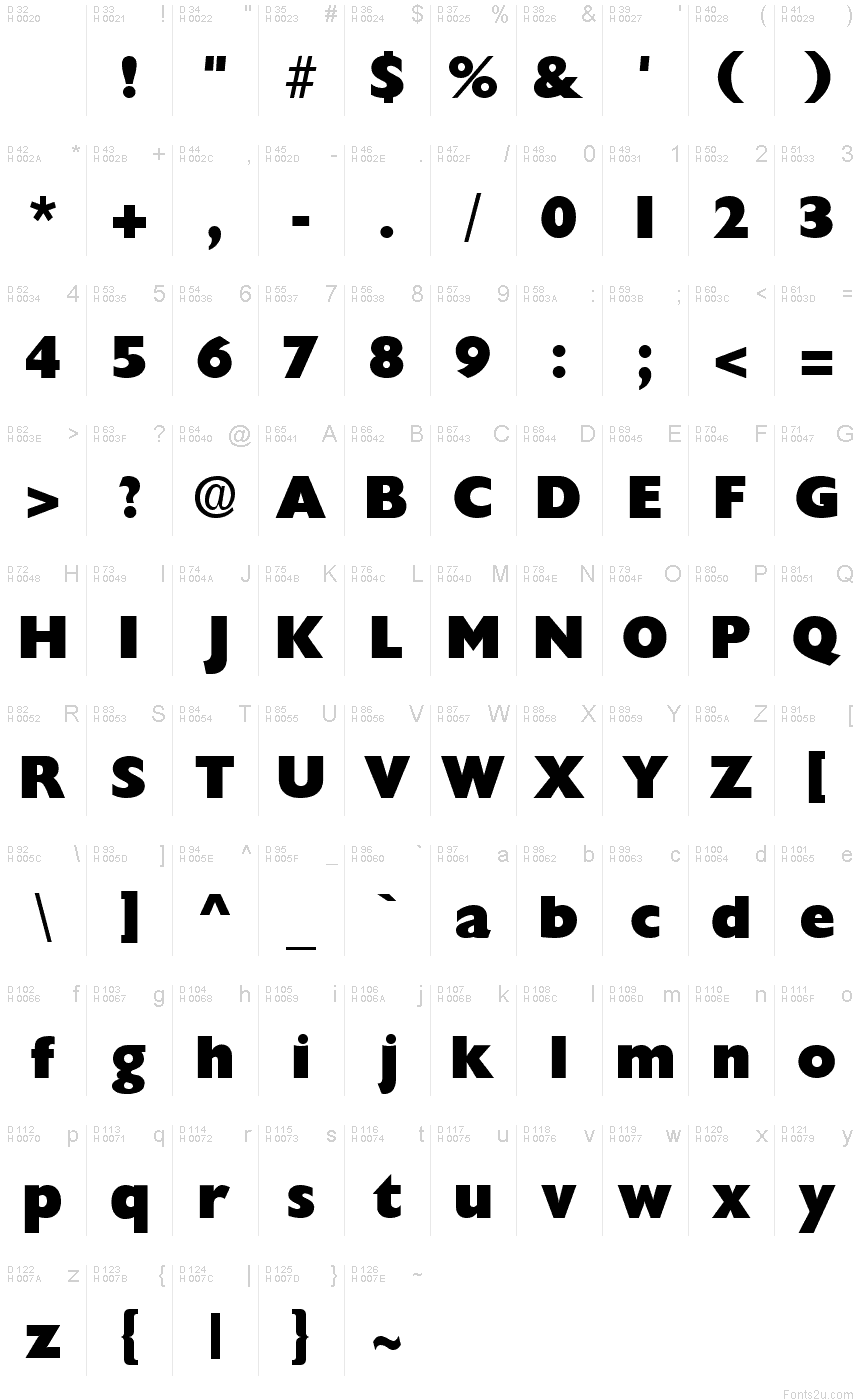
Herald Regular
Herald font is a free sans serif typeface with big, confident shapes and soft, rounded corners that feel almost inked with a fat marker. Its letters sit close together, creating a dense, dark line that instantly grabs attention without looking harsh or mechanical. The rhythm is steady and compact, so your words read as bold statements rather than fussy typography.
Using Herald, headlines, posters, packaging, and bold social media graphics all gain a friendly, straight-talking voice. This free font also works beautifully for logos, event flyers, and banner ads where you need impact in just a few words. Try pairing Herald with a clean, narrow sans for body copy and keeping Herald large, in short phrases, to let its chunky curves really carry the message.